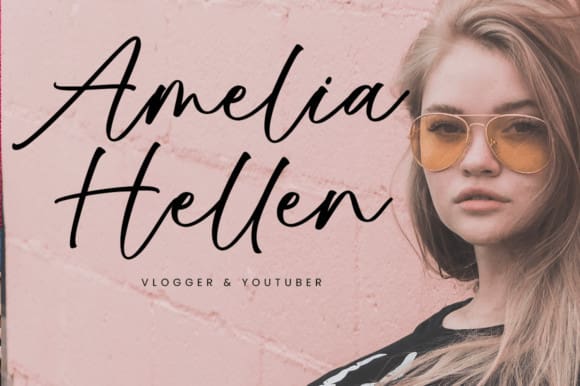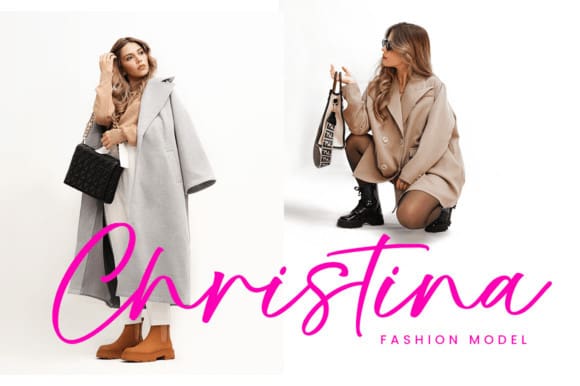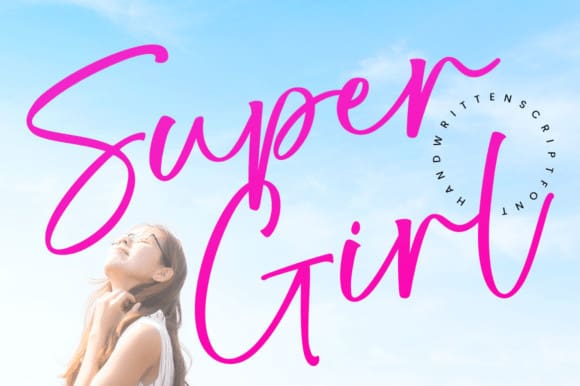
Super Girl Font
Super Girl Font is a lovely and delicate script font that exudes elegance and class. This font was particularly crafted for those who need a beautiful and refreshing look to their designs.